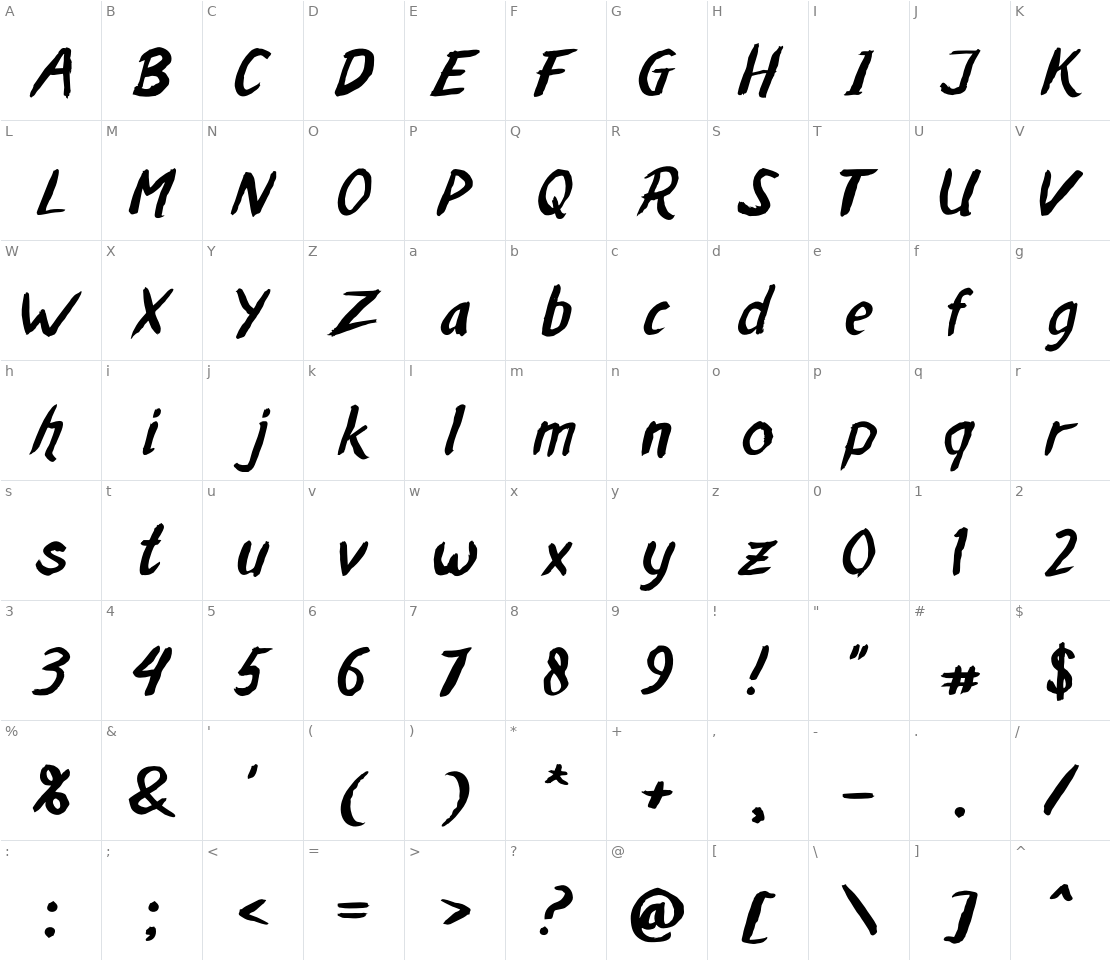
Malaka Brush
Malaka Brush is a bold, slanted brush face by Ferdiansyah with thick, expressive strokes that feel fast and unrefined in the best way. The handmade quality comes through in every letter, with visible ink texture and a forward-leaning energy that keeps things dynamic. Built for posters, headlines, and branding where you want type that looks like it was painted in one confident pass.